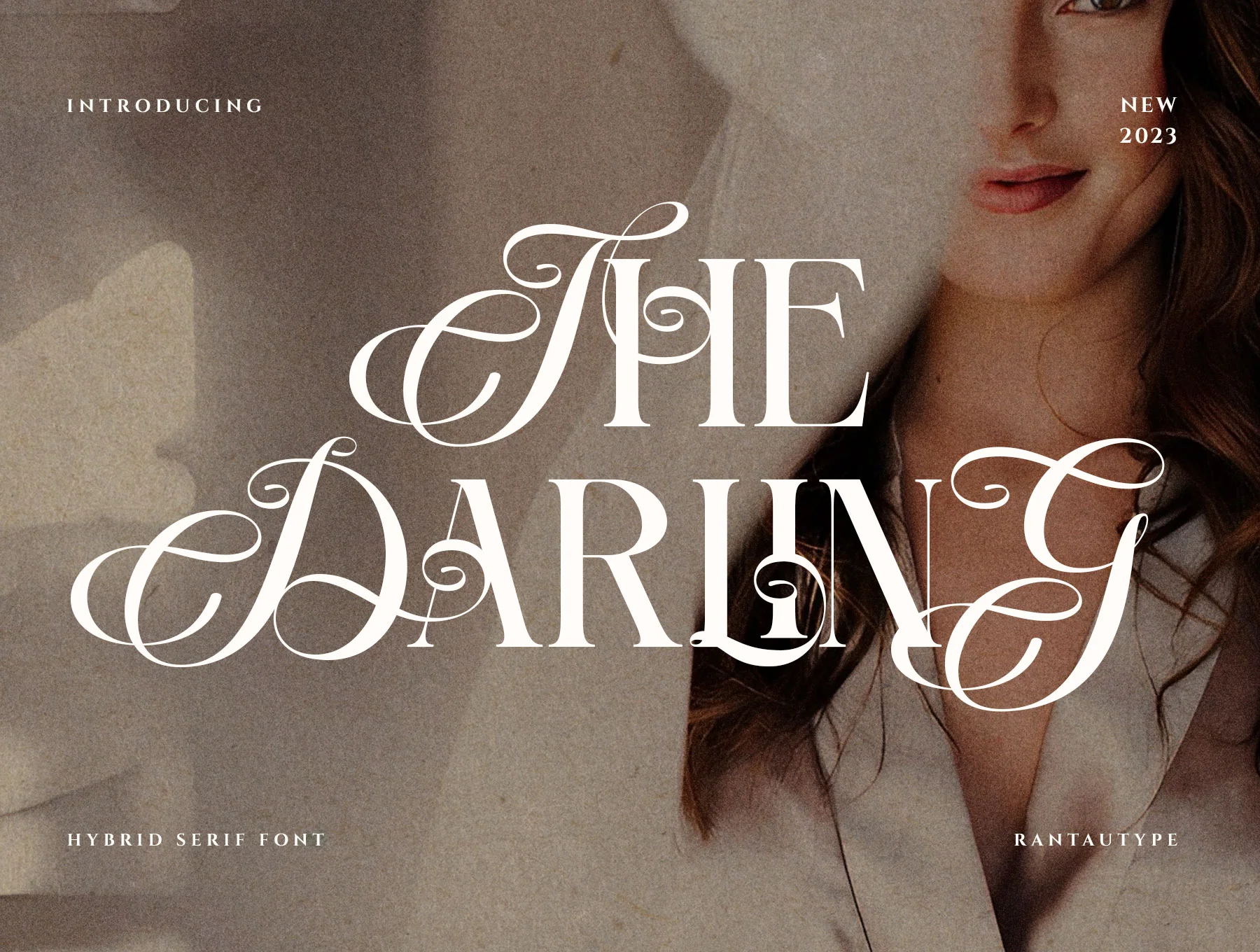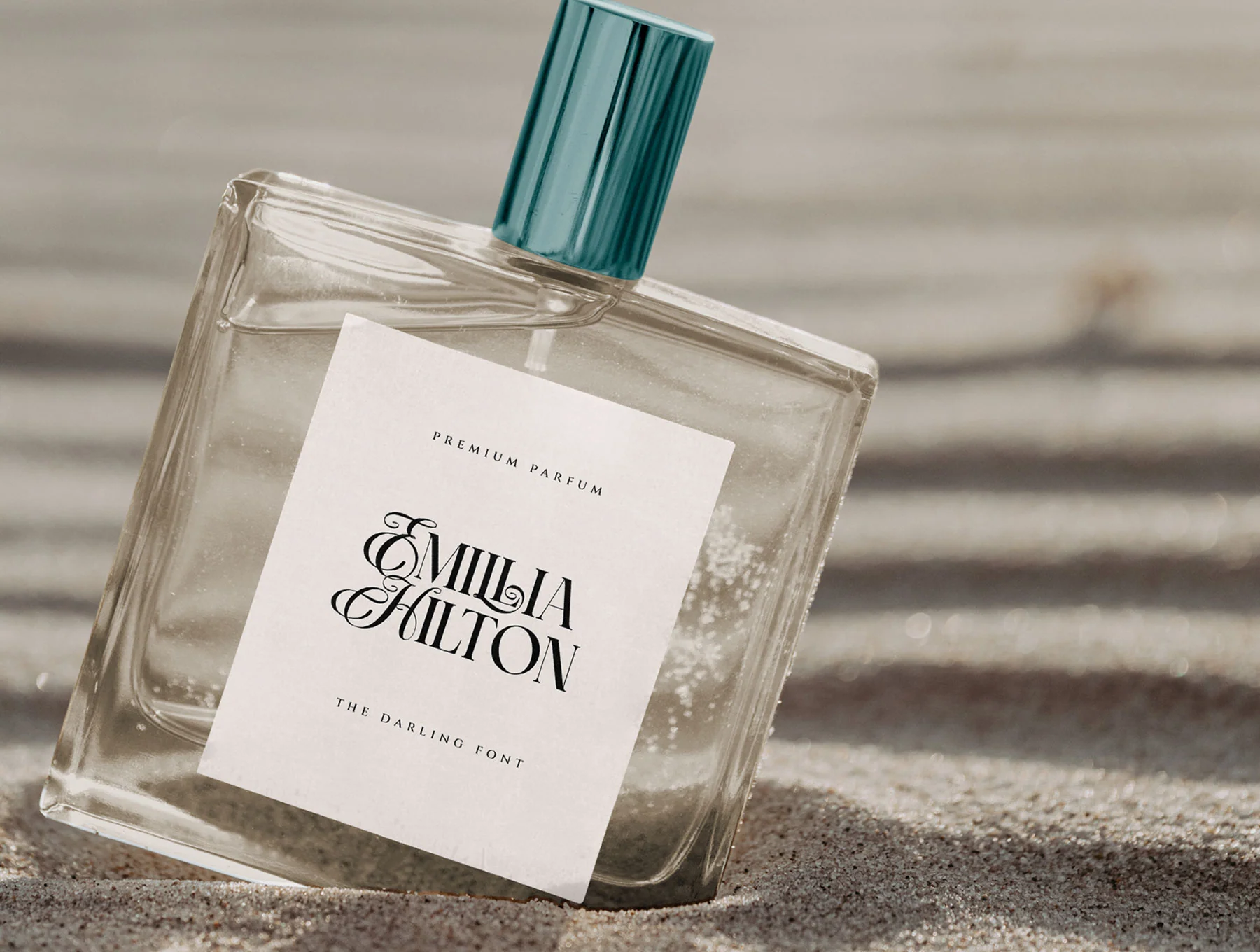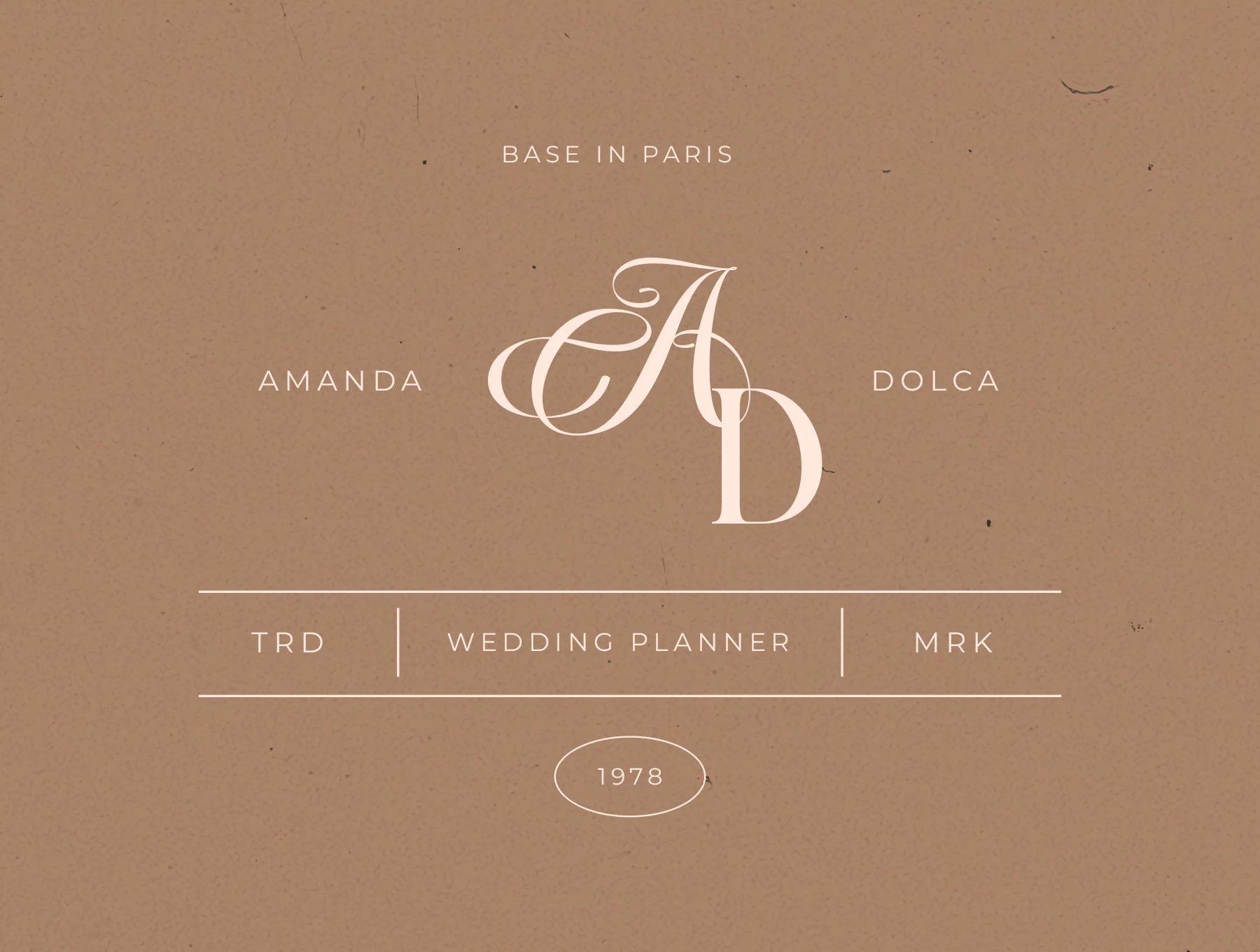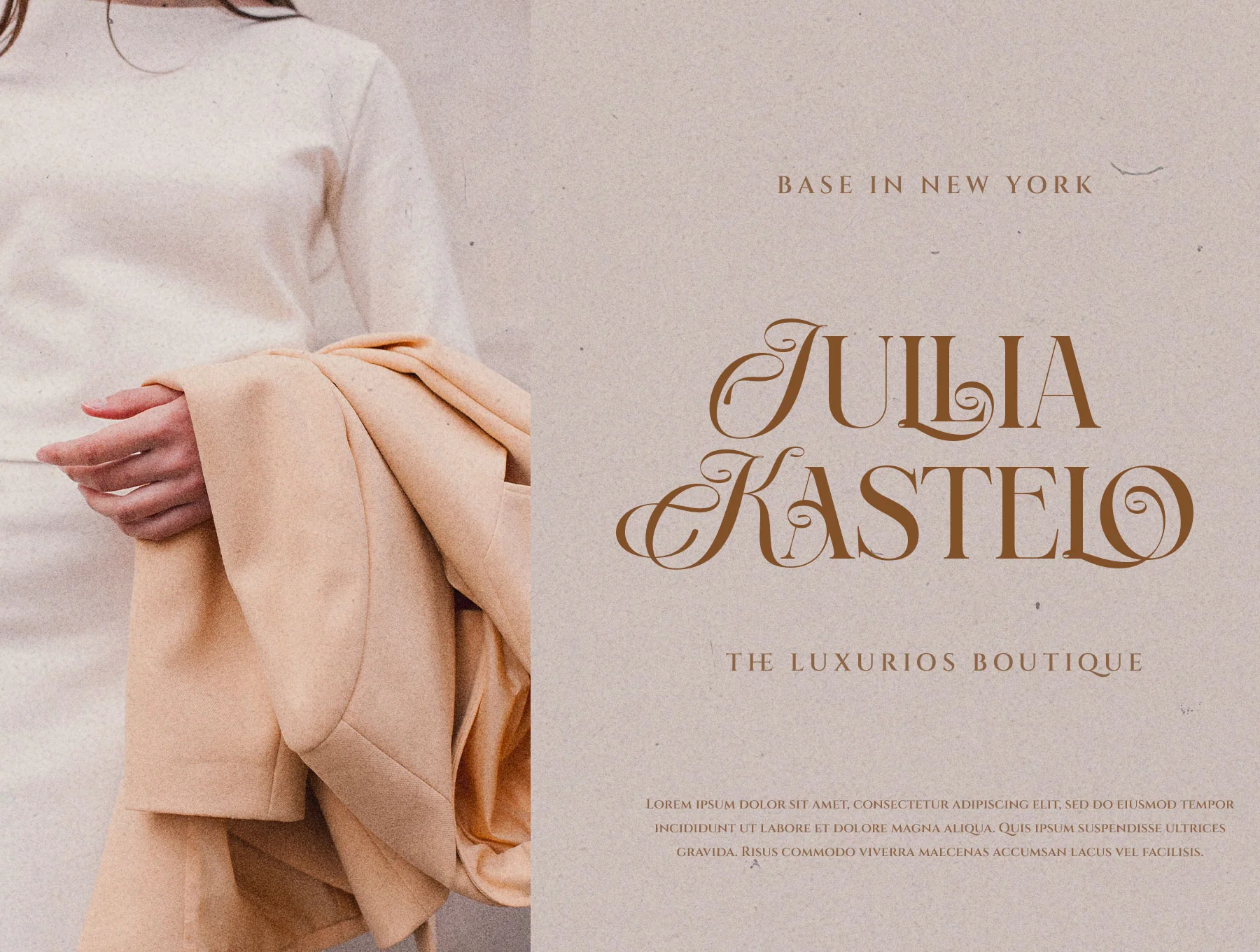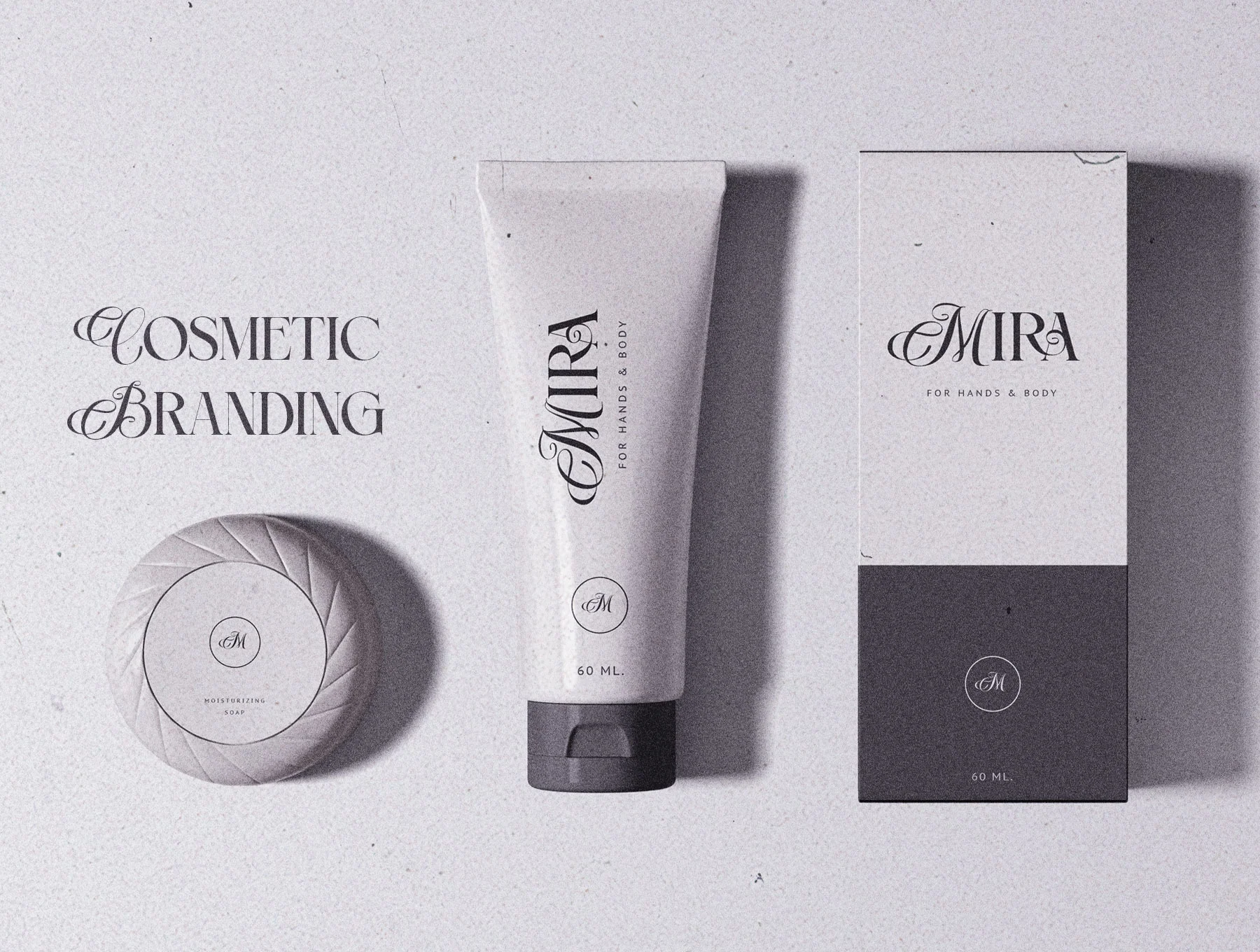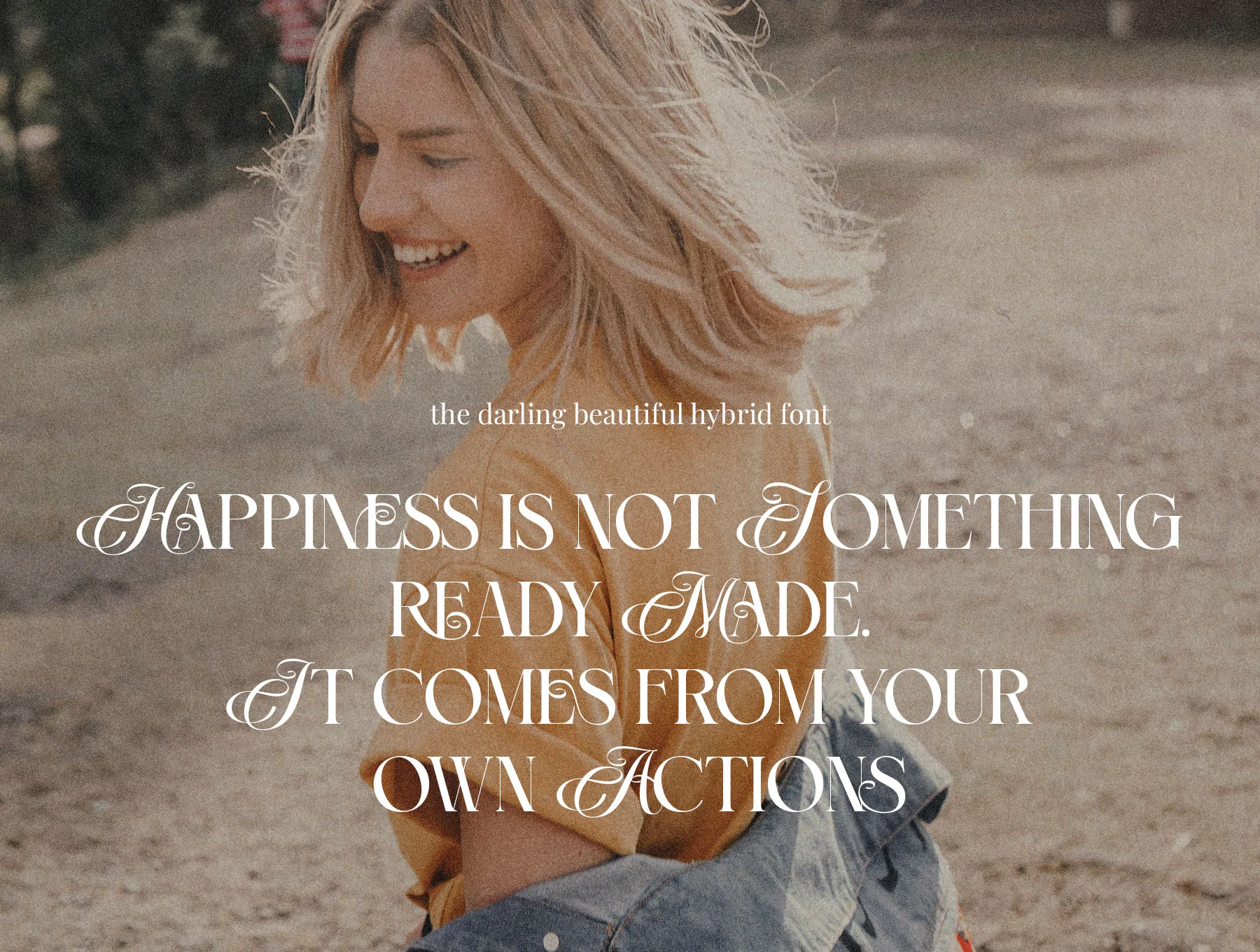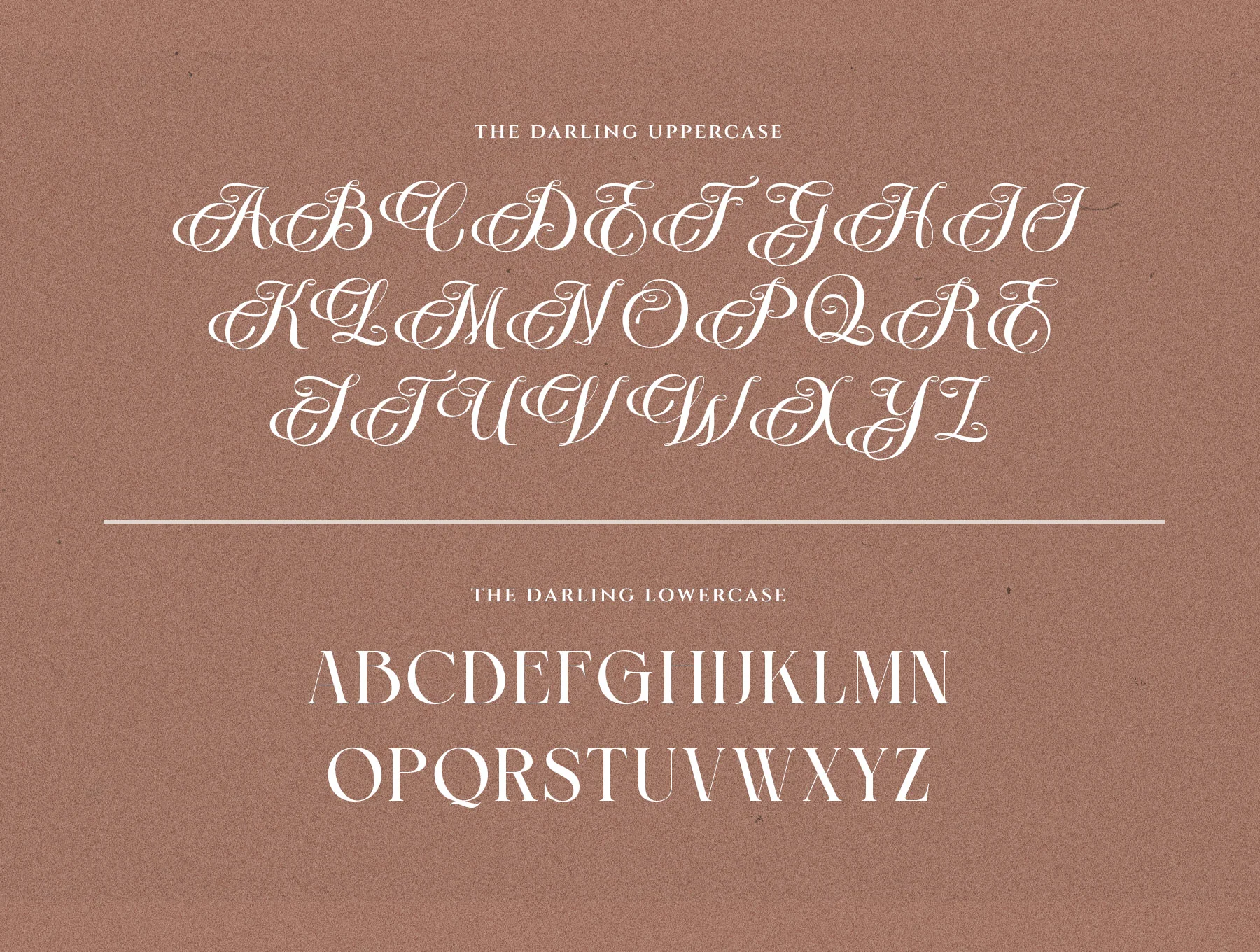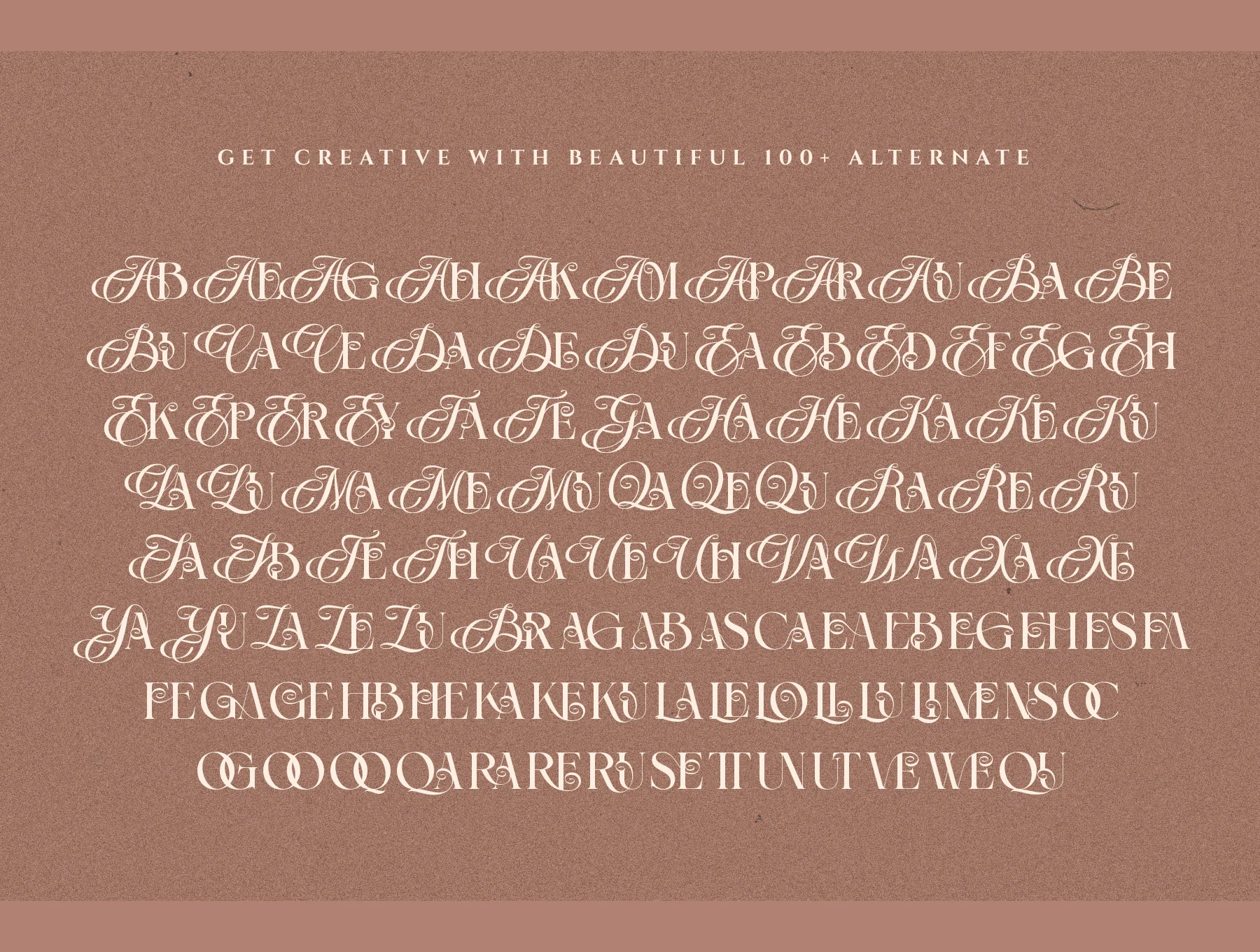
The Darling Modern Hybrid Serif Font
Darling contemporary hybrid serif typeface
Standard uppercase and lowercase A–Z characters
Elegant alternates and 100+ distinctive ligatures
The Darling blends elegant calligraphy with a contemporary serif for a refined, nostalgic look. Ideal for headlines, ads, branding, logos, packaging, editorials, websites, social quotes, and wedding or vintage-modern projects. Includes A–Z/a–z, numbers, symbols, alternates, 100+ ligatures, multilingual support, plus OTF, TTF, and WOFF files. Contact: rantautype@gmail.com